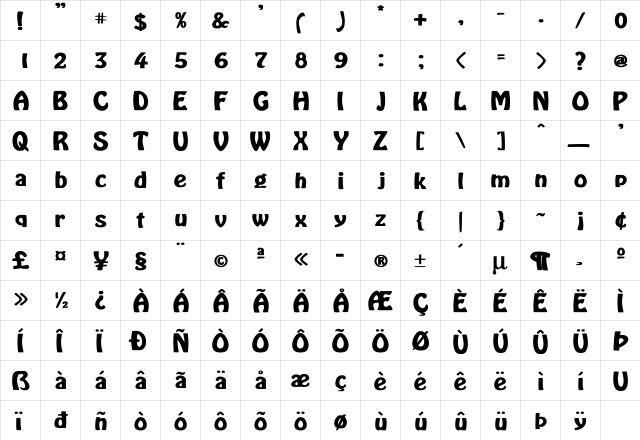
LaCosta Bold
Design Context for LaCosta Typeface
LaCosta takes a measured approach to typography — its balanced proportions and neutral character make it a reliable workhorse for both digital and print work. The heavy weight commands attention and anchors typographic hierarchies.
Pro Tip: Pair LaCosta with a font of contrasting weight or personality to build a more expressive typographic hierarchy.